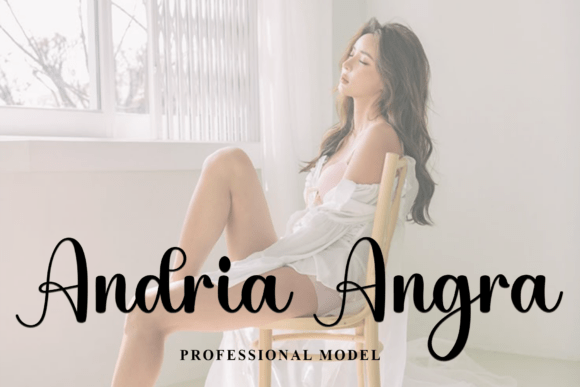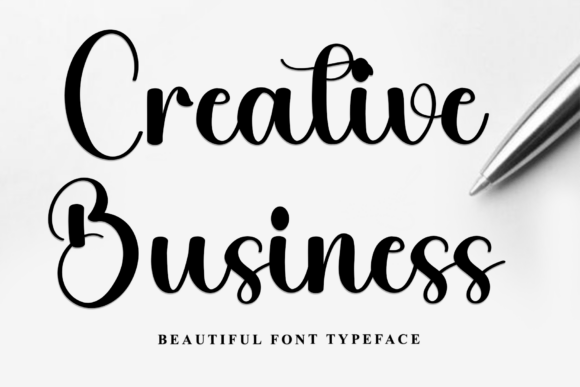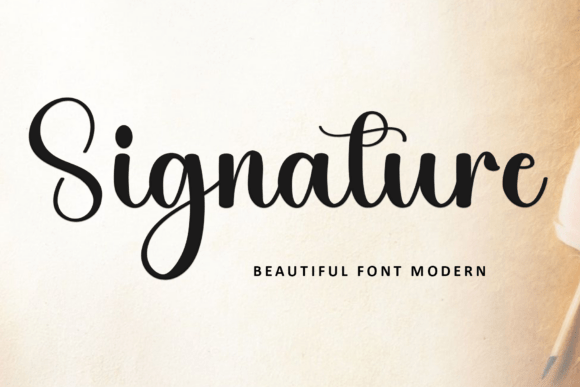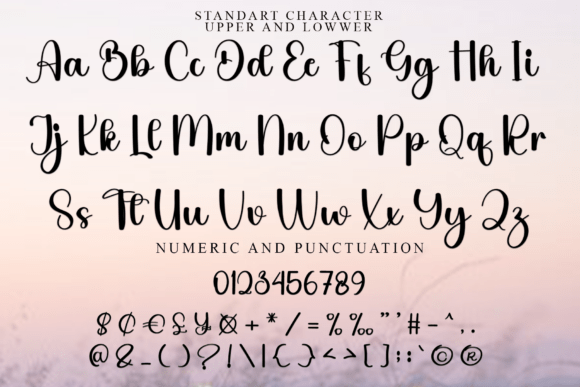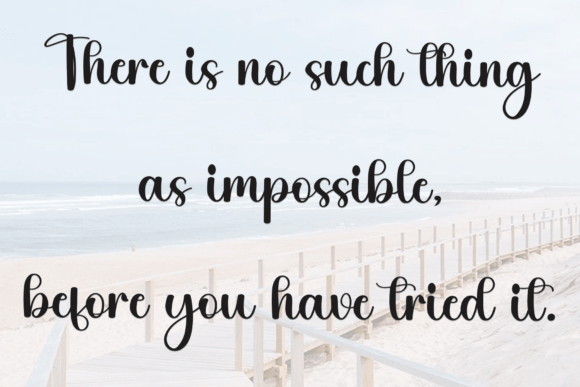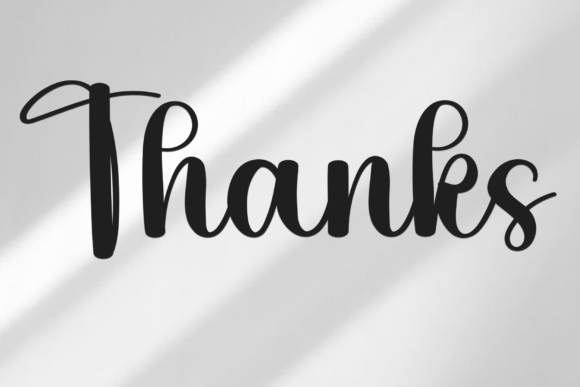
The Ultimate Design Game-Changer: Unleashing the Power of Benefit Font
I’ll never forget the frustration of working on a design project, hours spent perfecting every detail, only to realize that the font I chose was completely off. My client wanted something that would make their brand stand out, but I was stuck with a bland, generic font that just didn’t cut it. That’s when I discovered Benefit Font, and it changed the game for me. In this article, I’ll share my experience with Benefit Font, its unique features, and how you can make the most of it in your designs.
An Honest Review of Benefit Font
What I Love About Benefit Font
- ✨ Unique and eye-catching design: Benefit Font has a soft, distinctive touch that sets it apart from other fonts.
- ✅ Versatility: Its natural font style makes it perfect for a wide range of design projects, from crafts to creative works.
- 🎨 Variety of characters: The font offers a range of characters, making it ideal for designs that require a bit of personality.
While Benefit Font is an amazing font, there are a few things to keep in mind:
The Story Behind Benefit Font
Benefit Font was designed with the goal of creating a unique and versatile font that would meet the needs of designers and creative hobbyists. The designer wanted to create a font that would be both beautiful and functional, with a soft and distinctive touch. The result is a font that’s perfect for a wide range of design projects, from crafts to creative works.
Q: What is Benefit Font?
A: Benefit Font is a beautiful and eye-catching font designed with a soft, unique touch.